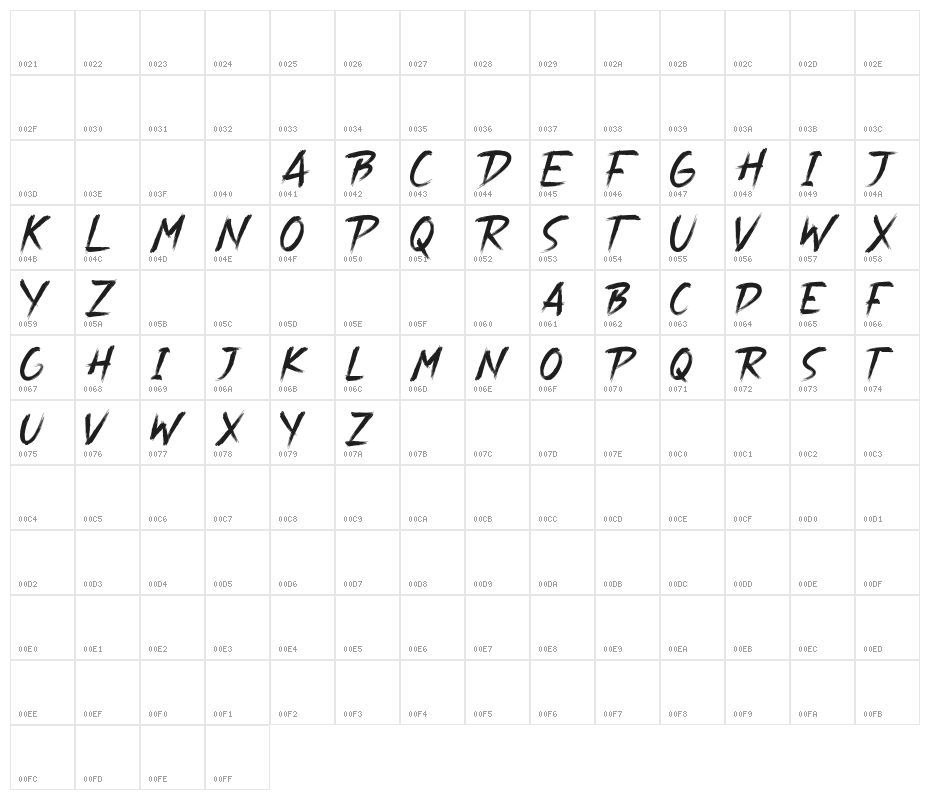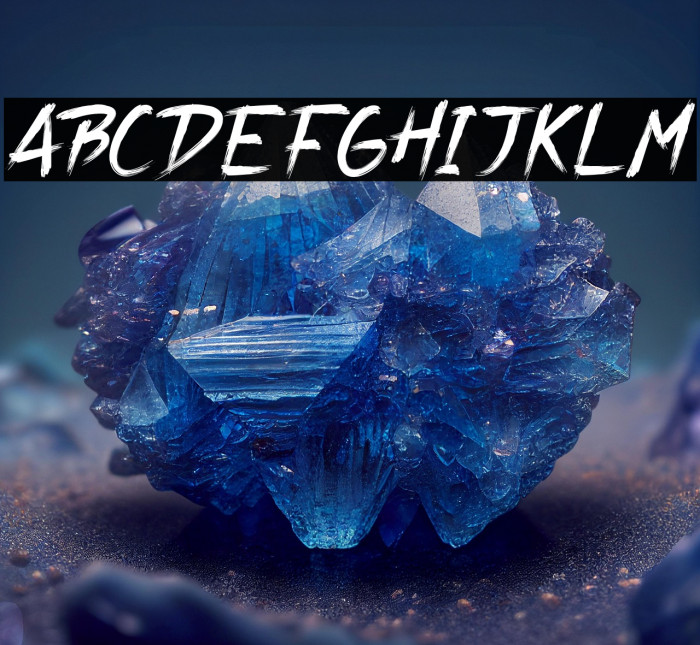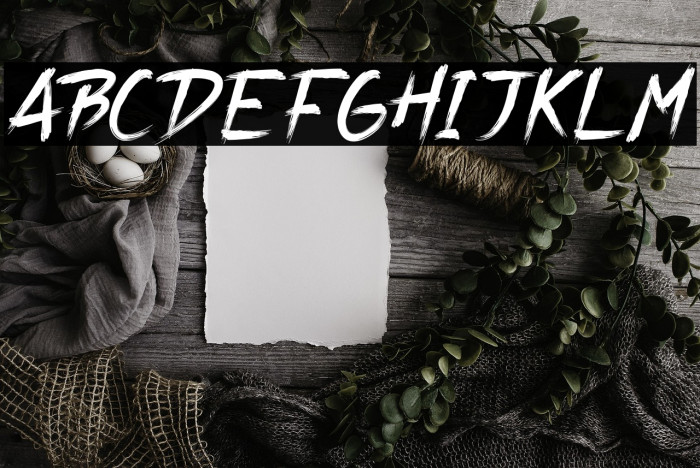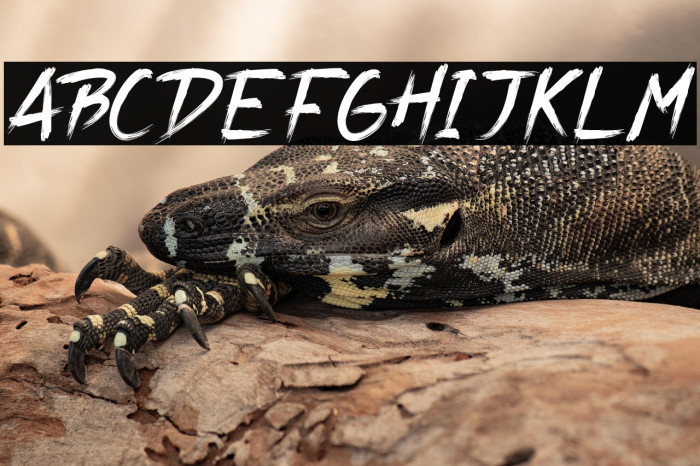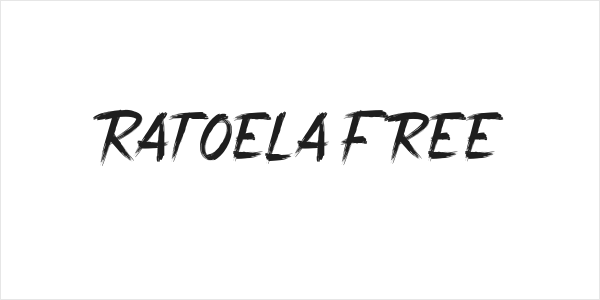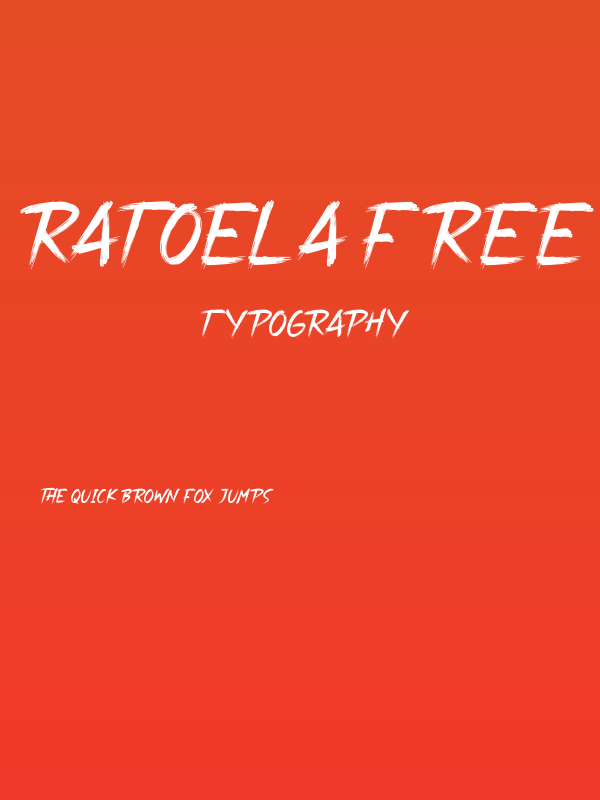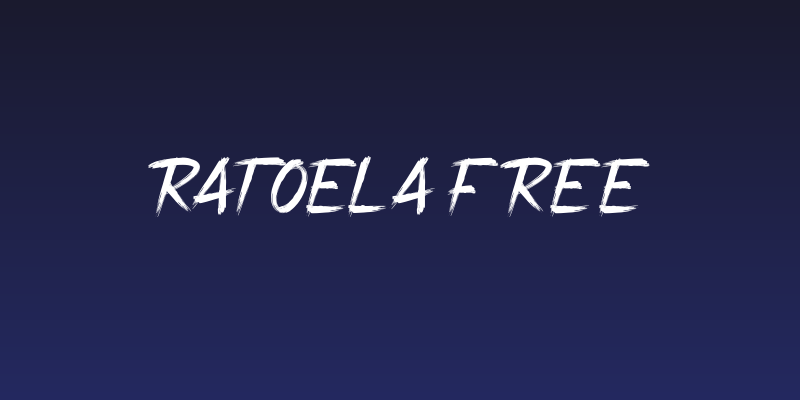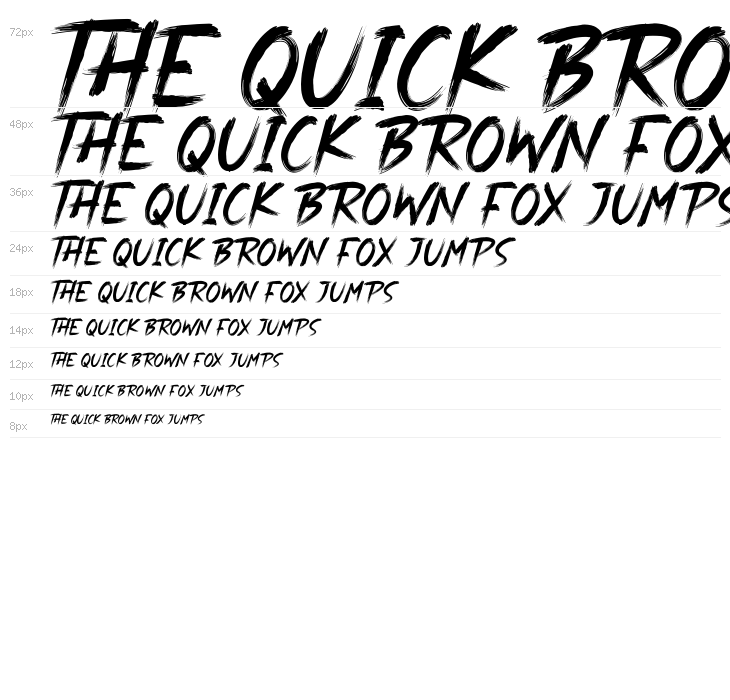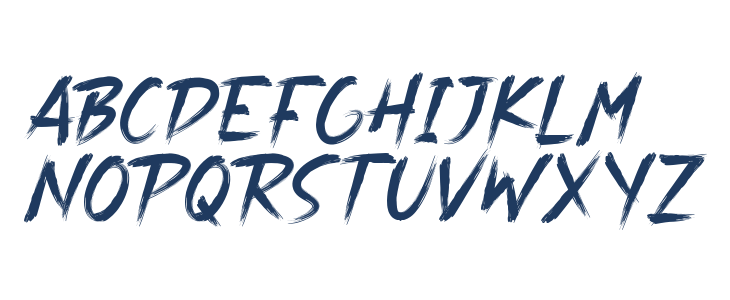
Ratoela Free Font
Ratoela Free Description
This font exhibits a dynamic and energetic style, characterized by its brush-like strokes that give it a hand-painted appearance. The letters are bold and slightly slanted, adding a sense of movement and fluidity. The rough edges and varying stroke thicknesses contribute to its artistic and expressive nature. This font is ideal for projects that require a bold statement or a creative touch, such as posters, branding, or artistic designs. Its unique style makes it stand out, capturing attention with its dramatic flair.
| Proposed Projects | Ideal for posters, branding, artistic designs, and any project needing a bold, creative touch. |